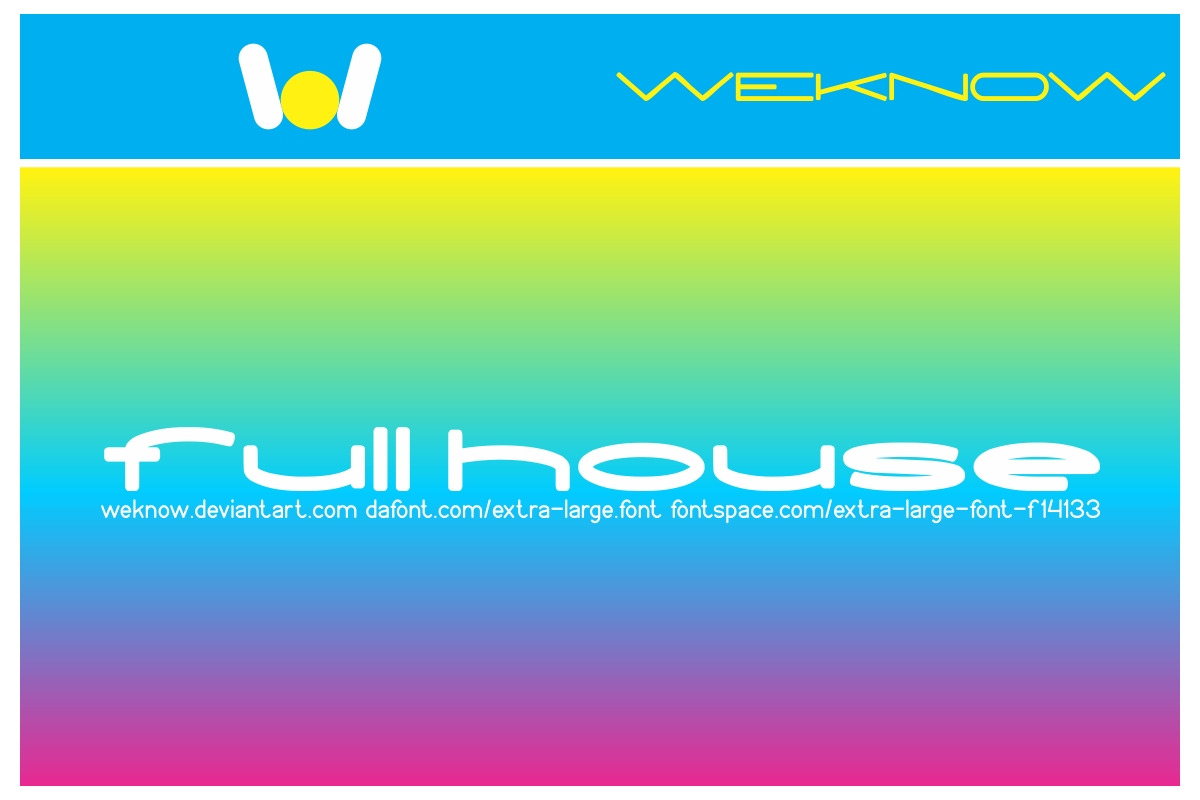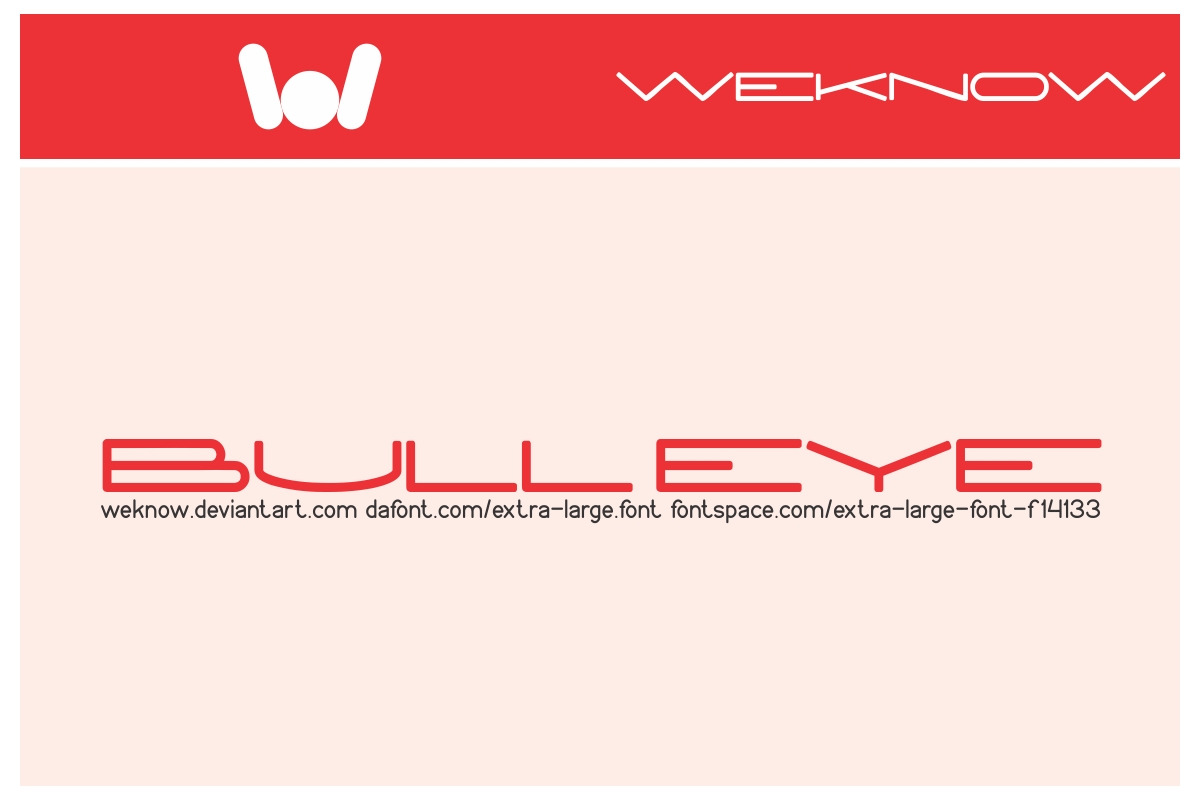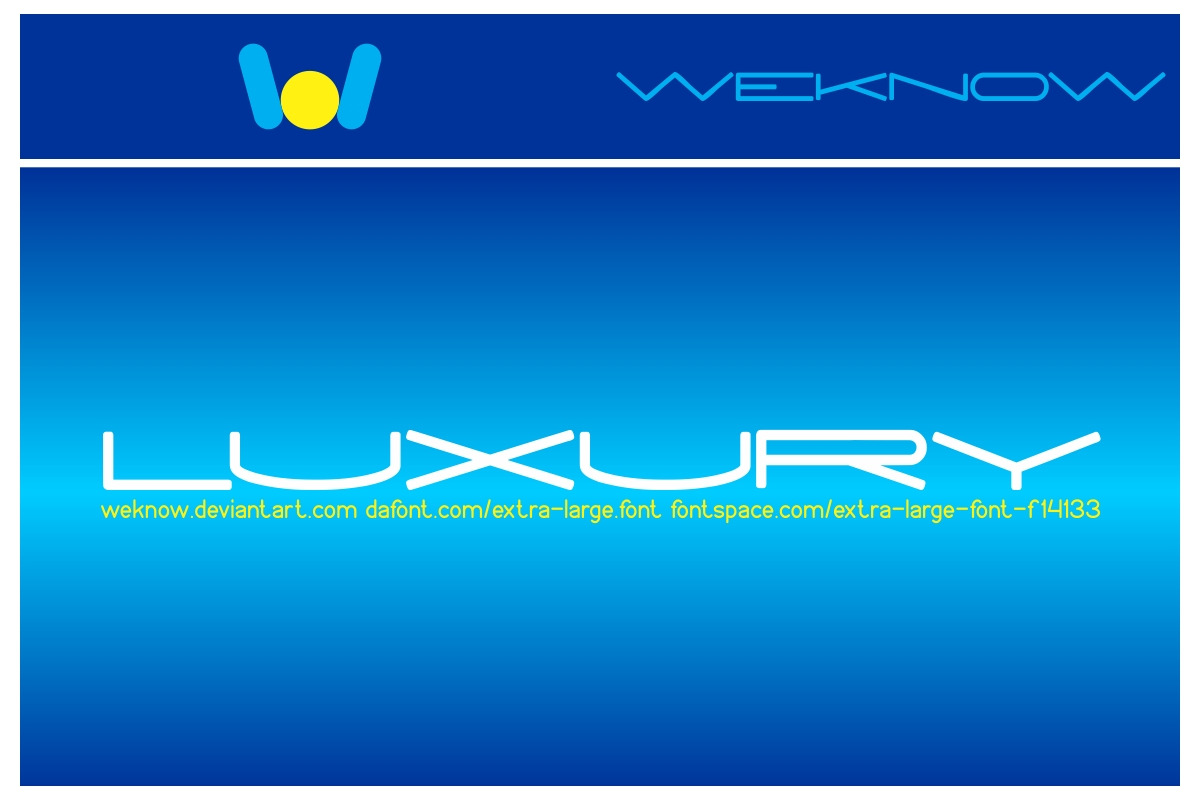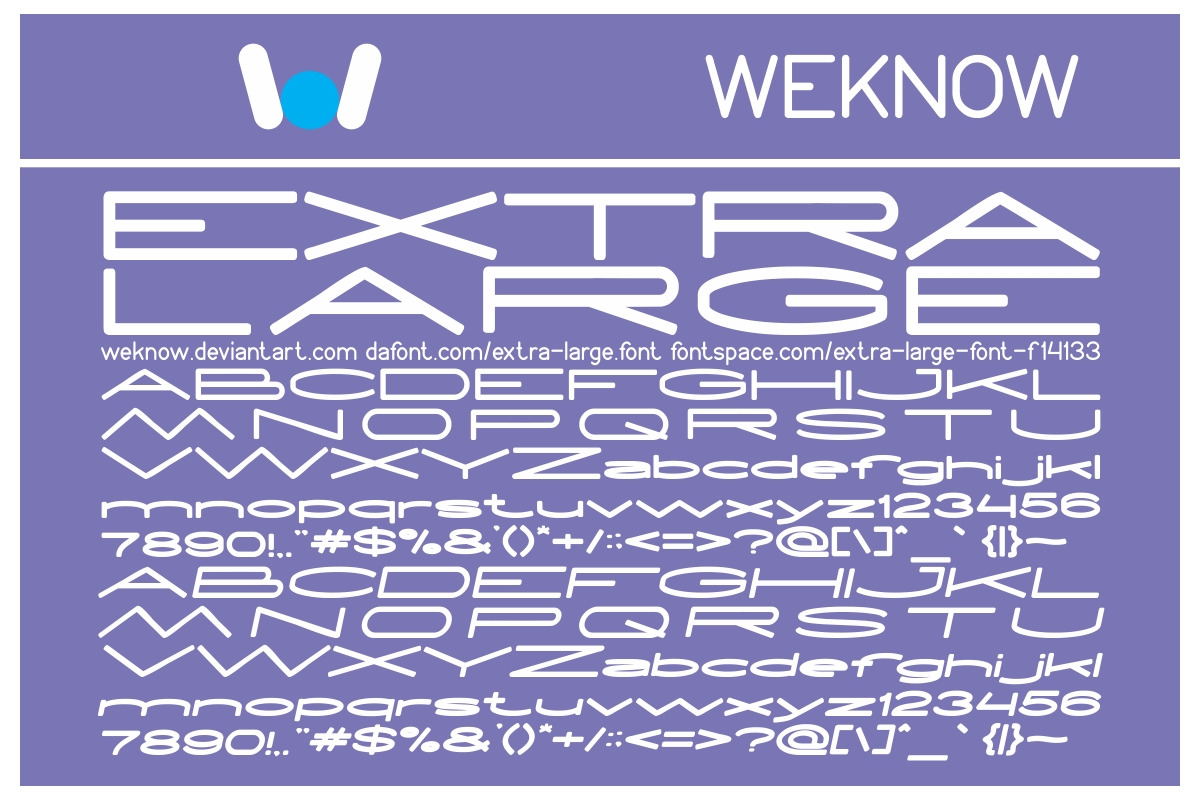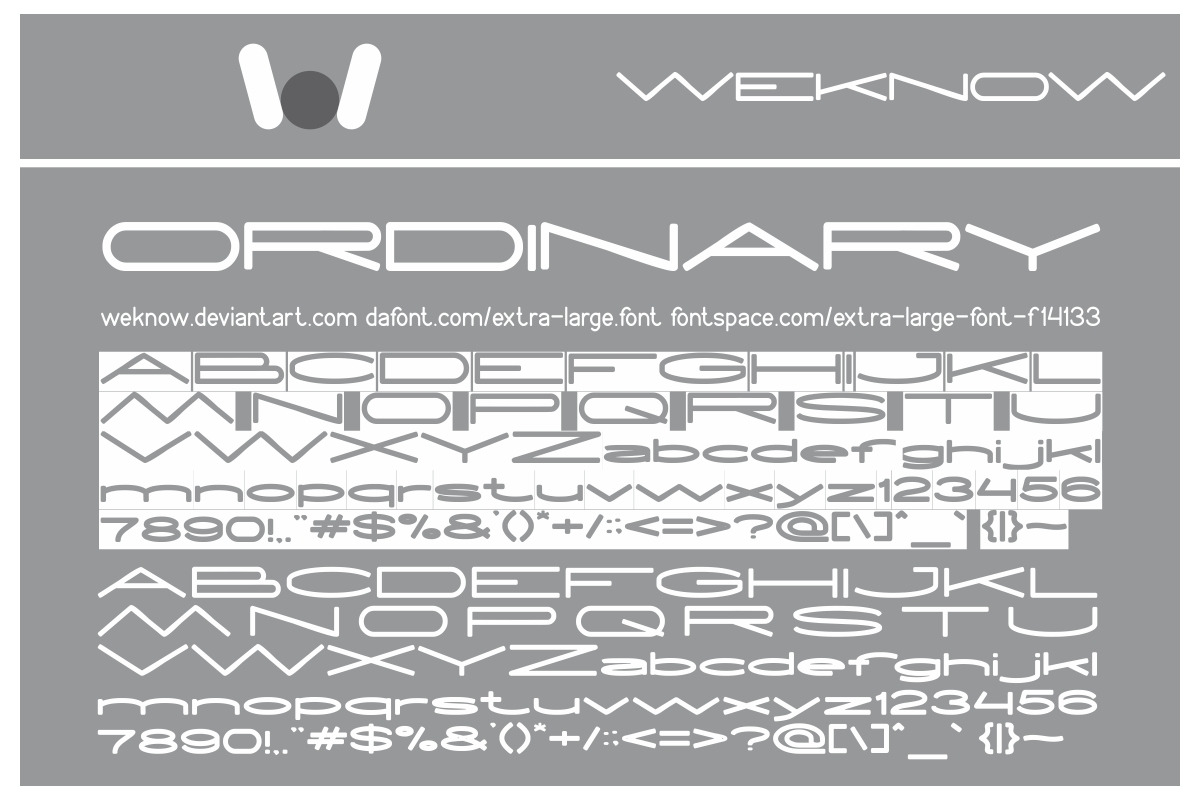
extra large font
available style: EXTRA LARGE-Light, EXTRA LARGE-Inverse, EXTRA LARGE-Italic
Why extra large font is worth a look
extra large font by weknow fits naturally into Branding, posters, packaging, typography.